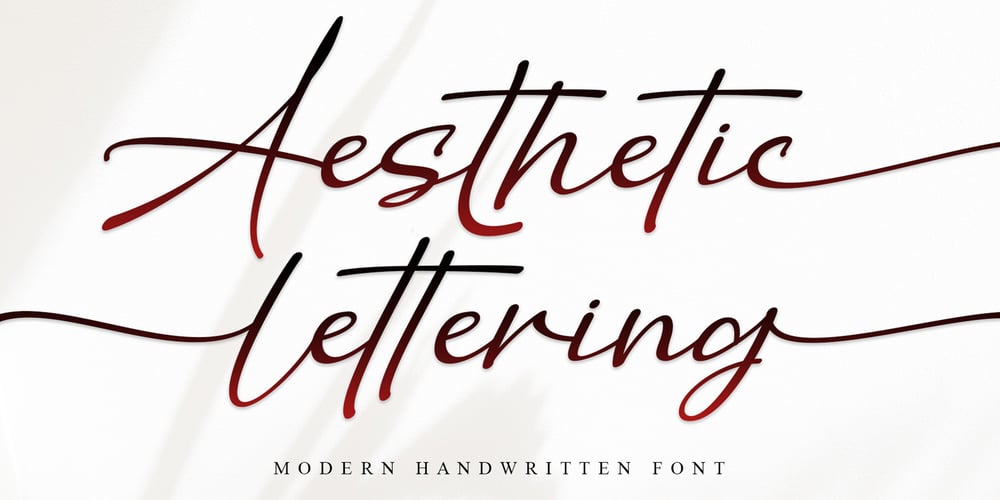
Aesthetic Lettering Font Family was designed by Ahmad Afandi and published by Letterafandi Studio. Aesthetic Lettering contains 2 styles and family package options. Introducing the unique and organic artistry of Aesthetic Lettering, a refreshingly authentic handwritten font. With its stylized natural elements, this text style gently whispers sophistication and aesthetic appeal, capturing the essence and beauty of handwritten scripts. A versatile font that truly speaks volumes in terms of character and personality, this gorgeously-crafted text style is capable to elevate communication, mirroring the charm and essence of traditional penmanship. Indulge in the timeless grace of Aesthetic Lettering, and capture your audience with its compelling elegance.